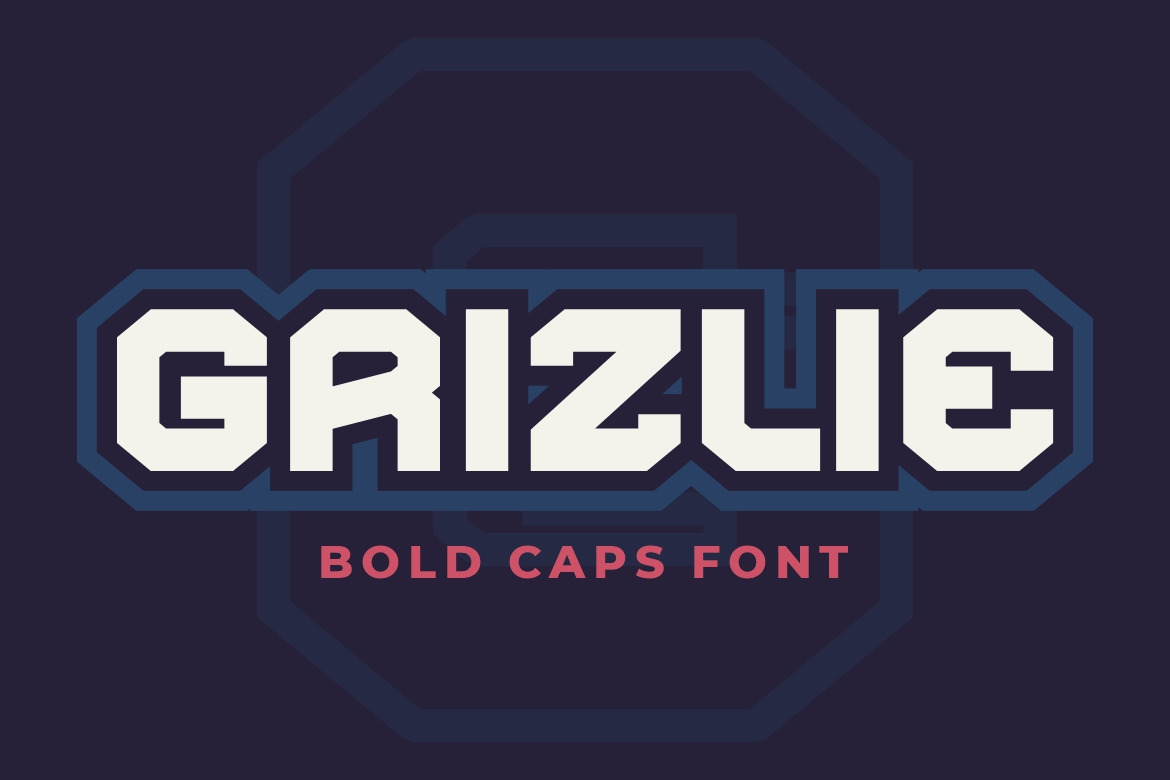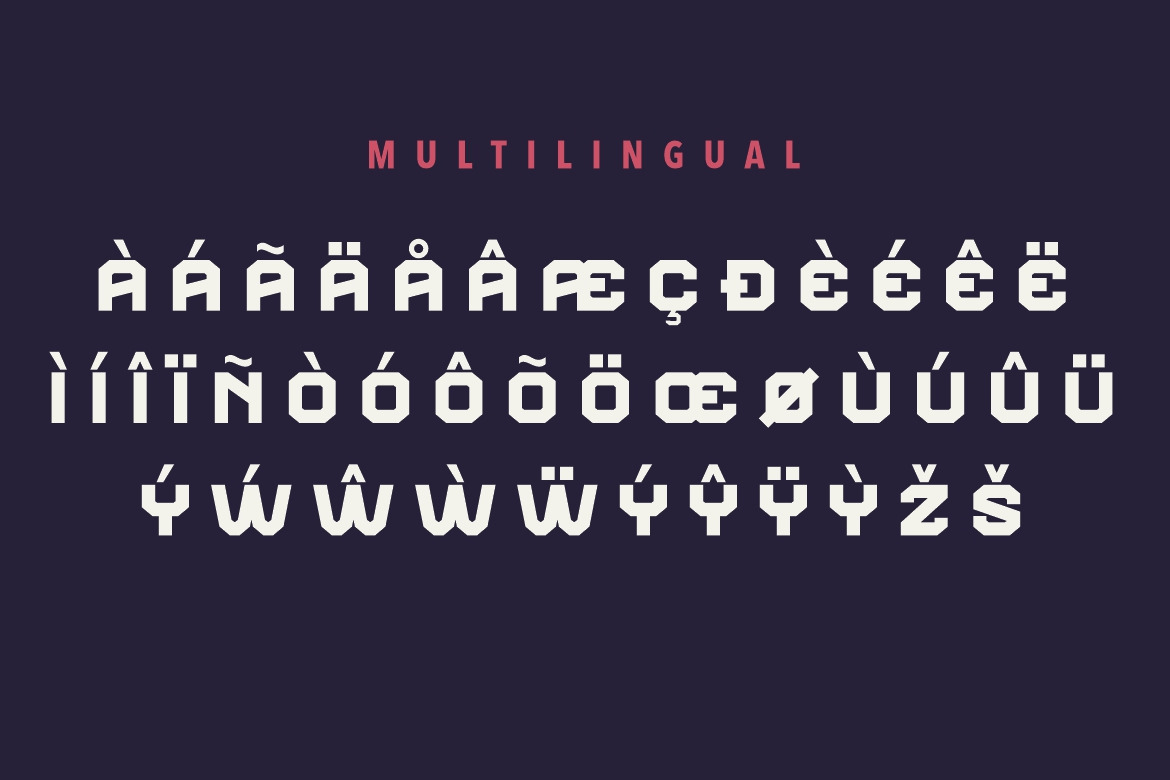
Grizlie Font
Introducing, GRIZLIE – Modern logo typeface!
Grizlie is a modern sans display typeface font with square style that will make your design looks modern and bold. You can use this font for any purpose, especially to make logotype like a baseball logo brand.